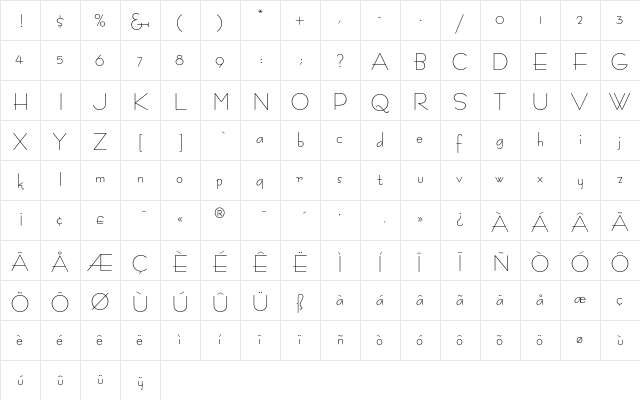
BernhardEF Fashion
Design Context for BernhardEF Typeface
BernhardEF is a composed and adaptable typeface that performs quietly and consistently across a wide range of design contexts.